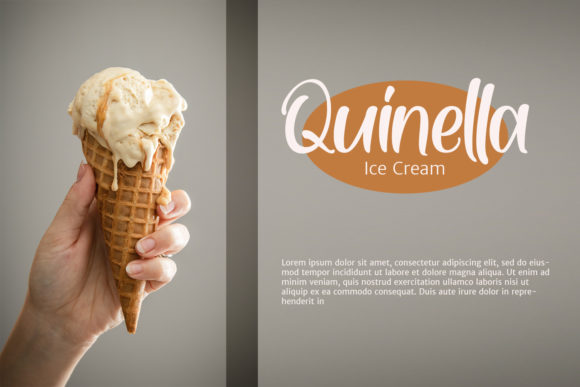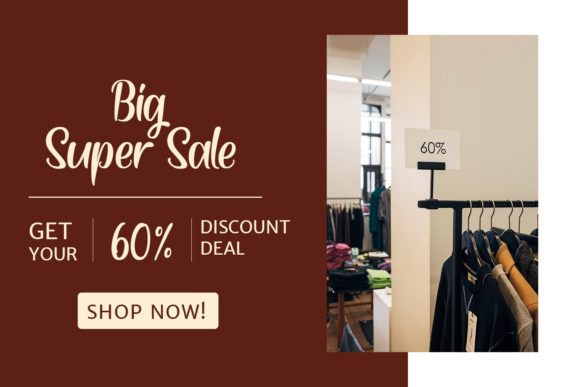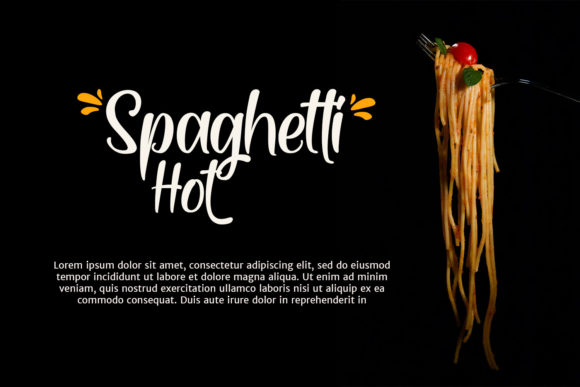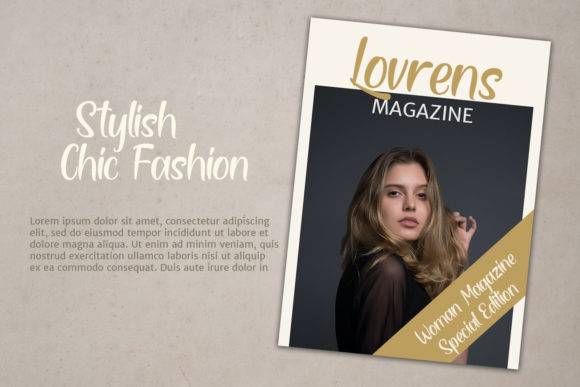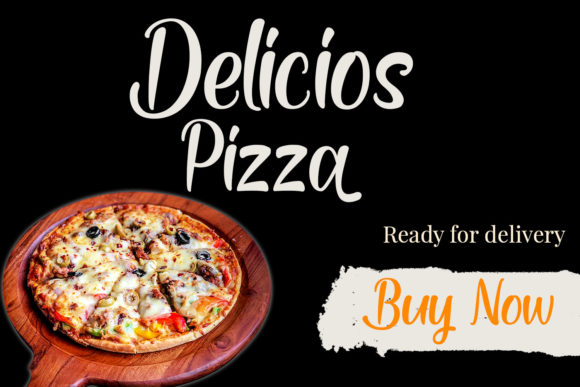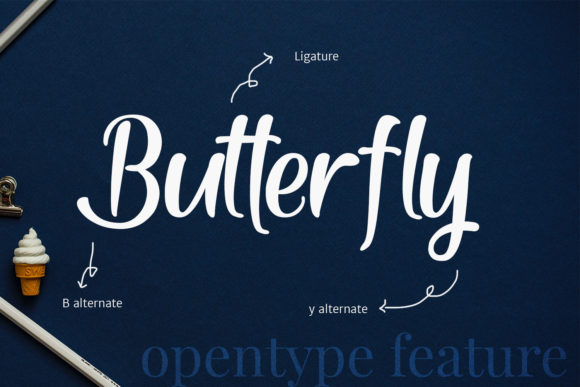
Introduction to Mittalya Font
Have you ever been working on a creative project, and you can’t quite find the right font to bring it all together? The perfect font can make or break a design, and it’s what sets the tone for the entire project. For designers, finding that elusive perfect font can be a challenge, but when you do, it’s like a breath of fresh air.
That’s where the Mittalya Font comes in – a beautiful and refined script font that’s sure to elevate any design. With its classy, elegant, and modern look, it’s perfect for logos, branding, invitations, stationery, wedding designs, social media posts, and much more! Whether you’re a seasoned designer or just starting out, the Mittalya Font is a valuable design resource that’s sure to become a go-to favorite.
Key Features of Mittalya Font
- High-quality design: Mittalya Font is a professional and elegant font suitable for various creative projects.
- Large character set: Mittalya Font includes a wide range of characters, including Latin, Cyrillic, and Greek alphabets, as well as punctuation marks and symbols.
- Unique characteristics: Mittalya Font features a unique blend of modern and vintage elements, making it a great choice for designers looking for a distinctive look.
Honest Review: Mittalya Font
As a designer, I’m always on the lookout for high-quality design resources that can elevate my creative projects. I recently had the chance to work with the Mittalya Font, and I’m excited to share my honest review with you.
- ✨ Unique and modern design style that adds a touch of elegance to any project
- ⚠️ Limited character set, which may not be ideal for projects requiring extensive typography
Overall, I’m impressed with the Mittalya Font’s potential to add a creative touch to my projects. While it may have some limitations, the benefits far outweigh the drawbacks. If you’re looking for a high-quality design resource to elevate your work, I’d definitely recommend giving the Mittalya Font a try.
The Mittalya Font is a high-quality design resource ideal for creative projects that require a unique and elegant touch. With a transparent background, this font is perfect for adding a professional finish to your work.
To get the most out of the Mittalya Font, experiment with different font sizes, colors, and styles. You can also use the font in combination with other design elements to create a unique and eye-catching effect.
The Mittalya Font is ideal for a wide range of creative projects, including business cards, brochures, and presentations. It’s also perfect for adding a professional touch to your social media graphics and website content.
What makes the Mittalya Font a popular design resource?